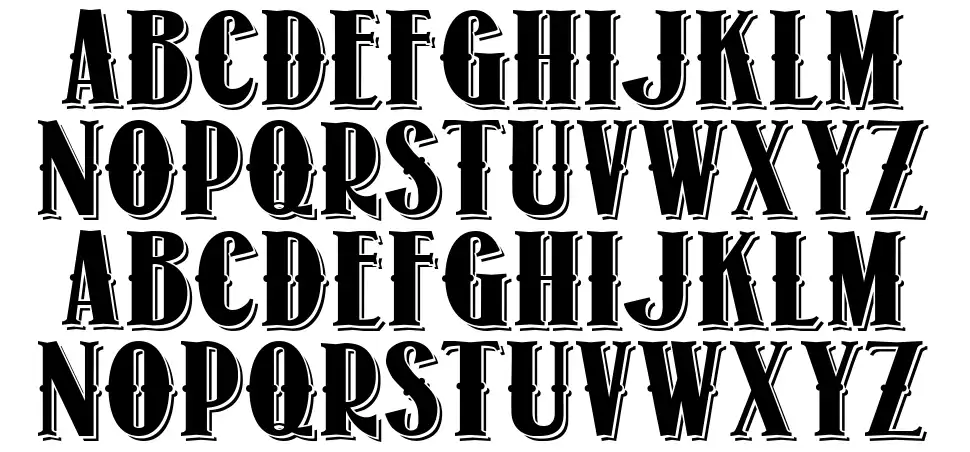
What Font Was Used In The 1900S . Uses published in the first decade of the 20th century. Serif typefaces are characterized by the presence of small decorative strokes (known as serifs) at the end of each letter’s main strokes. Serif, sans serif, script, blackletter, display, monospaced, and symbol or ornamental. What typeface was commonly used in the 1900s? In the 19th century, several prominent fonts gained popularity for use in different typographic applications. What were the popular fonts in the 1900s? Blackletter typefaces were the first in typeface history, followed by serifs and sans serifs. Examples of fonts in use tagged with “1900s”. Clarendon , a sturdy slab serif. Some popular fonts from the 19th century include: While there is no definitive list of the classifications of typefaces, there are seven that are generally recognized: Which fonts were utilized during the 1900s? During the 1900s, a variety of fonts were used in typography and design. In the 19th century, the commonly used typeface was serif.
What typeface was commonly used in the 1900s? Clarendon , a sturdy slab serif. Which fonts were utilized during the 1900s? In the 19th century, the commonly used typeface was serif. Serif, sans serif, script, blackletter, display, monospaced, and symbol or ornamental. Some popular fonts from the 19th century include: Uses published in the first decade of the 20th century. Serif typefaces are characterized by the presence of small decorative strokes (known as serifs) at the end of each letter’s main strokes. While there is no definitive list of the classifications of typefaces, there are seven that are generally recognized: Examples of fonts in use tagged with “1900s”.
What Font Was Used In The 1900S During the 1900s, a variety of fonts were used in typography and design. Some popular fonts from the 19th century include: Clarendon , a sturdy slab serif. Serif typefaces are characterized by the presence of small decorative strokes (known as serifs) at the end of each letter’s main strokes. What were the popular fonts in the 1900s? Which fonts were utilized during the 1900s? Examples of fonts in use tagged with “1900s”. While there is no definitive list of the classifications of typefaces, there are seven that are generally recognized: Blackletter typefaces were the first in typeface history, followed by serifs and sans serifs. What typeface was commonly used in the 1900s? Serif, sans serif, script, blackletter, display, monospaced, and symbol or ornamental. In the 19th century, several prominent fonts gained popularity for use in different typographic applications. In the 19th century, the commonly used typeface was serif. Uses published in the first decade of the 20th century. During the 1900s, a variety of fonts were used in typography and design.
The Evolution of 19th Century Typography From Traditional to Modern What Font Was Used In The 1900S What typeface was commonly used in the 1900s? Uses published in the first decade of the 20th century. In the 19th century, several prominent fonts gained popularity for use in different typographic applications. Clarendon , a sturdy slab serif. Serif, sans serif, script, blackletter, display, monospaced, and symbol or ornamental. What were the popular fonts in the 1900s? Serif typefaces. What Font Was Used In The 1900S.
Vintages Typeface Free Fonts What Font Was Used In The 1900S What were the popular fonts in the 1900s? During the 1900s, a variety of fonts were used in typography and design. Uses published in the first decade of the 20th century. Some popular fonts from the 19th century include: Serif typefaces are characterized by the presence of small decorative strokes (known as serifs) at the end of each letter’s main. What Font Was Used In The 1900S.
The Great Gatsby is Coming Here are 15 FREE GatsbyInspired Fonts What Font Was Used In The 1900S Examples of fonts in use tagged with “1900s”. Uses published in the first decade of the 20th century. Serif typefaces are characterized by the presence of small decorative strokes (known as serifs) at the end of each letter’s main strokes. Some popular fonts from the 19th century include: In the 19th century, the commonly used typeface was serif. Which fonts. What Font Was Used In The 1900S.
30 Charming Victorian Fonts To Bring Back The Beauty of the 1800s What Font Was Used In The 1900S What were the popular fonts in the 1900s? Which fonts were utilized during the 1900s? In the 19th century, the commonly used typeface was serif. Some popular fonts from the 19th century include: While there is no definitive list of the classifications of typefaces, there are seven that are generally recognized: In the 19th century, several prominent fonts gained popularity. What Font Was Used In The 1900S.
Something about vintage typography conveys a message of authenticity What Font Was Used In The 1900S What were the popular fonts in the 1900s? Uses published in the first decade of the 20th century. Which fonts were utilized during the 1900s? In the 19th century, the commonly used typeface was serif. Examples of fonts in use tagged with “1900s”. What typeface was commonly used in the 1900s? Serif typefaces are characterized by the presence of small. What Font Was Used In The 1900S.